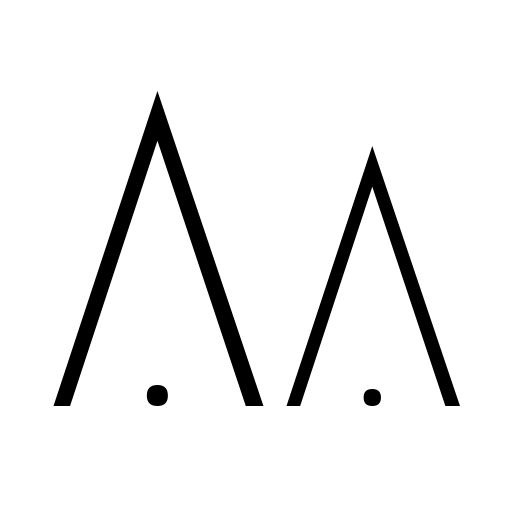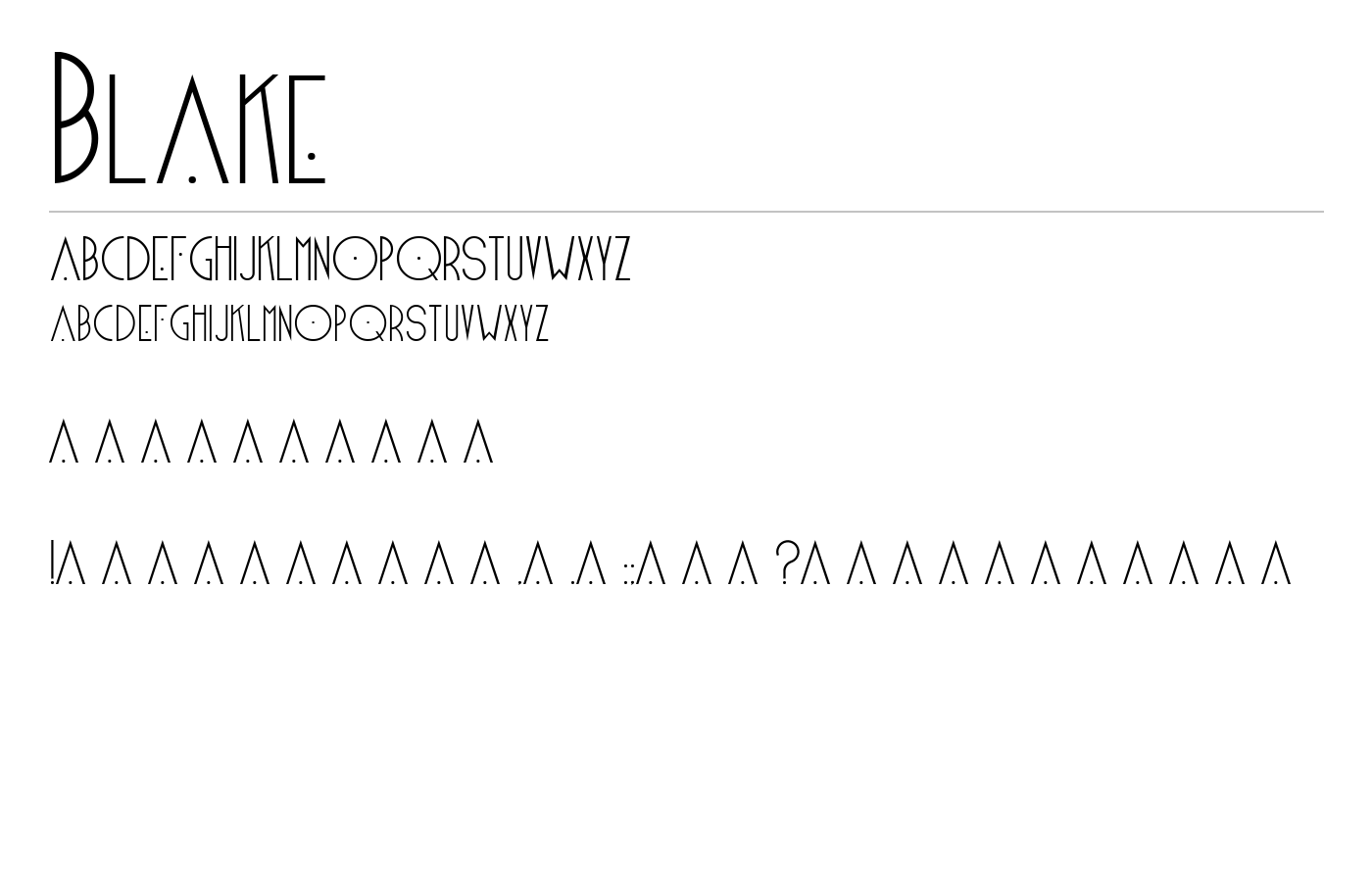
Blake is a sleek, modern sans serif font featuring narrow, elongated letterforms with a delicate stroke weight and minimal contrast. Its geometric shapes and unique dot embellishments give it a stylish, art-deco-inspired personality, making it ideal for elegant logos, headlines, and creative branding that seeks a sophisticated yet distinctive look. This font shines in settings where a refined, contemporary aesthetic is desired, especially in fashion, luxury, and editorial design.
Blake Font
About Blake Font